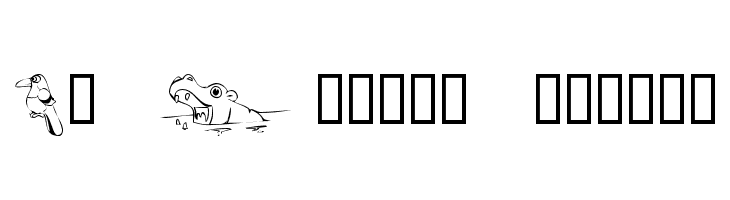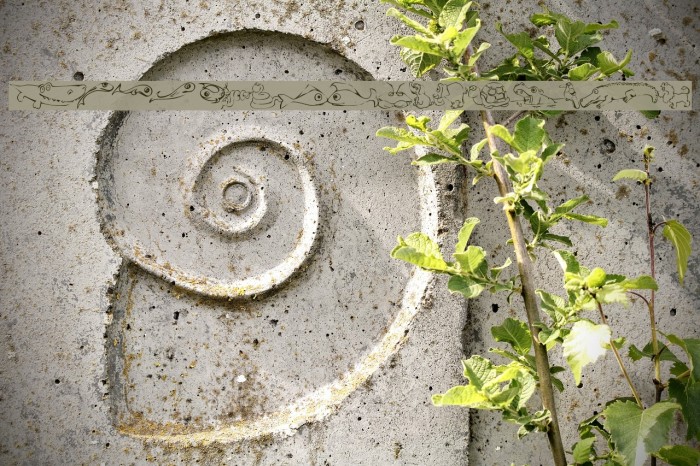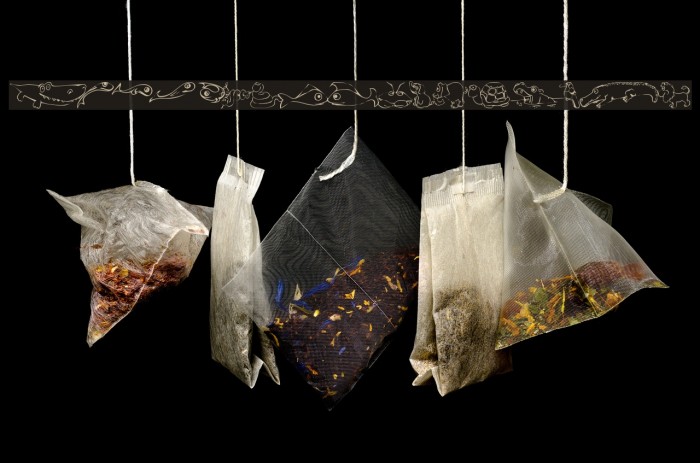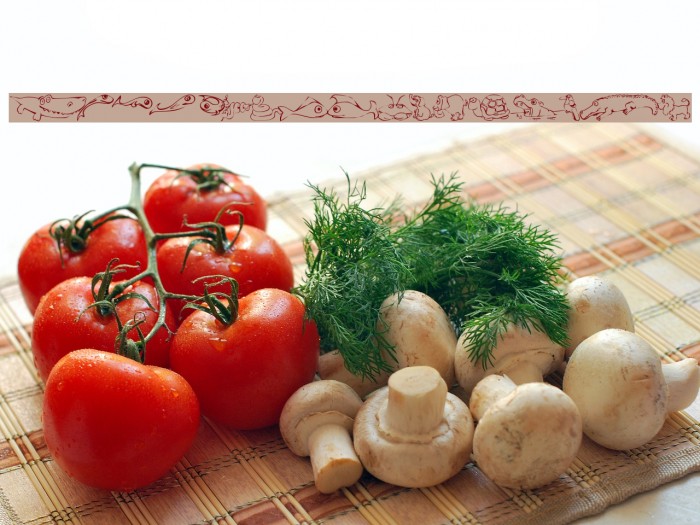
KR Jungle Scraps Font
KR Jungle Scraps Description
This font is a playful and whimsical design featuring jungle-themed characters and elements. Each letter is creatively transformed into an animal or jungle-related figure, making it highly decorative and unique. The style is reminiscent of hand-drawn illustrations, with a focus on creativity and fun. The characters are detailed and imaginative, providing a sense of adventure and exploration. This font is perfect for projects that require a lively and engaging visual element, capturing the essence of a jungle safari.
A whimsical, jungle-themed decorative font with playful animal characters from Dingbats fonts.
- Proposed Projects: Ideal for children's books, educational materials, themed party invitations, and playful branding projects.
- Use Case: Logos, Posters, Invitations